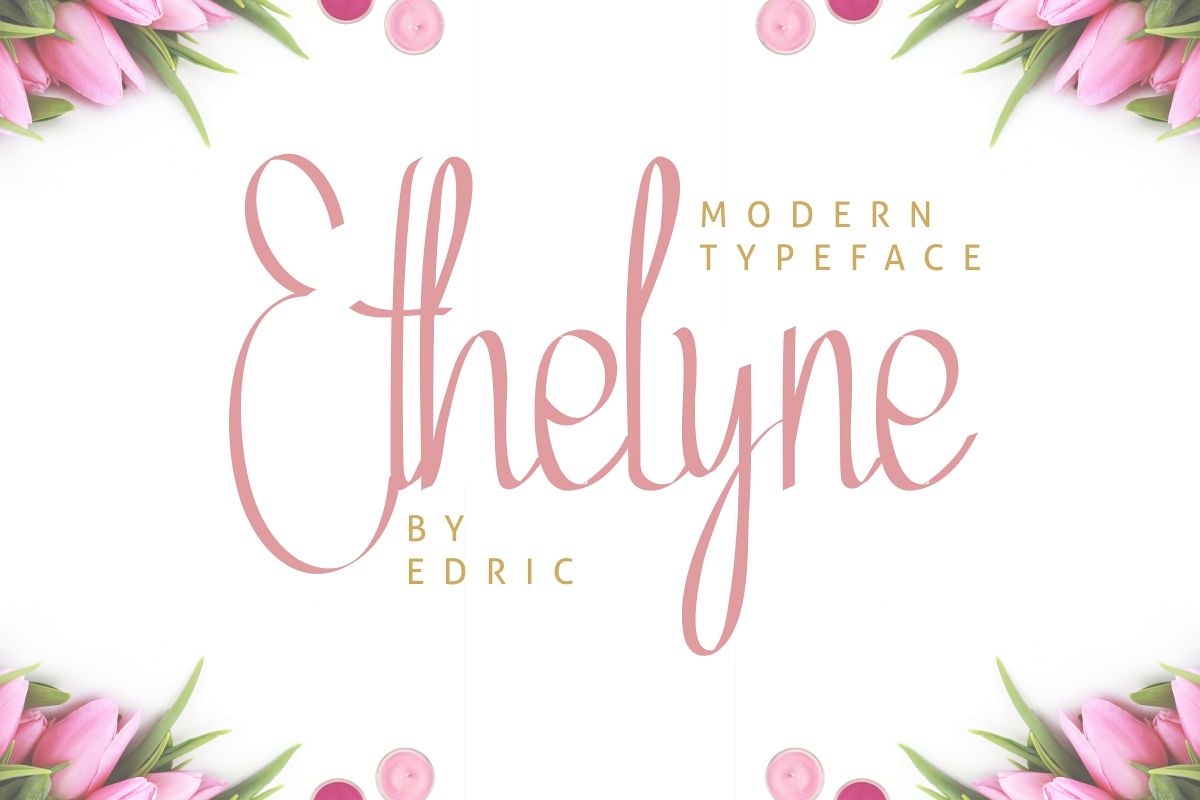
Ethelyne
Whatsup Everyone?! Introducing our newest font : Ethelyne ! This is a new modern script handwriting feminine style font. It has a fresh, elegant and stylish glyphs. It will be perfect for personal branding, logo, stationery, business card, signage, flyer, brochure, banner, signage etc. There are many industries that is suitable for this font : construction, real estate, restaurant, makeup artist, hairstylist, law firm, and many moreThis is a sophisticated styling font which will be perfect for branding, logo, photography and signature. It is so elegant, classy, strong and beautiful.This font will Work on PC & Mac with Simple installations. Accessible in the Adobe Illustrator, Adobe Photoshop, Adobe InDesign, even work on Microsoft Word. It’s also PUA Encoded Characters – Fully accessible without additional design software.Purchase with confidence! =)